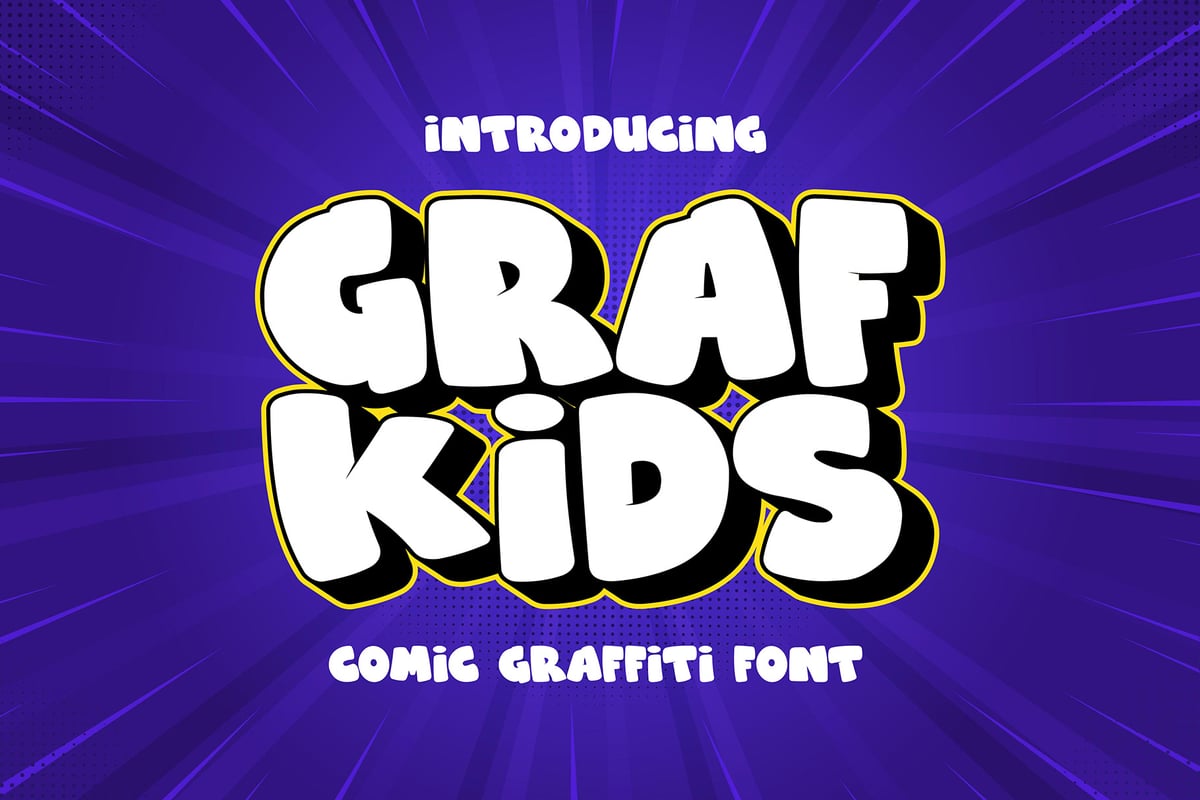
Grafkids - Shadow
Grafkids is a playful comic graffiti font that blends bold street art with whimsical comic style, perfect for projects that need a fun, youthful edge.